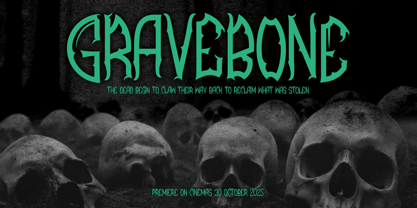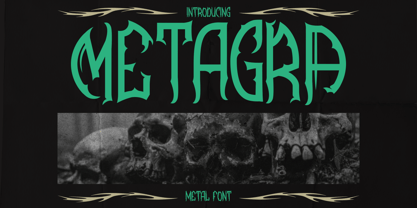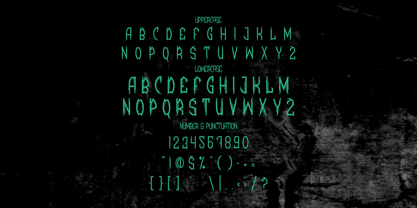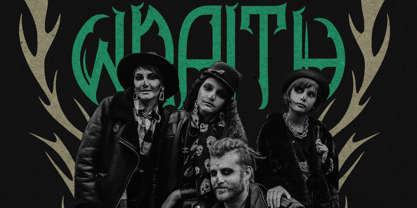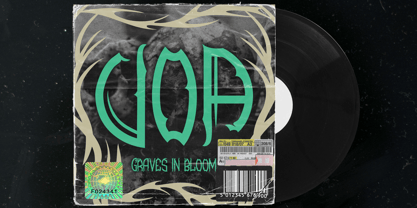
Metagra
von Shanaf
Die Schriftfamilie Metagra wurde von Yesie Erma Yunita entworfen und von Shanaf veröffentlicht. Metagra enthält 1 Stile. Mehr über diese Familie
Metagra Metal Font brings a striking metal aesthetic shaped with tall, narrow forms and pointed detailing. Its letters feature sharp inner cuts, extended spines, and claw-like terminals that create an intense silhouette. The structure is slim but sturdy, offering strong contrast and a dramatic vertical presence. Each character carries a hand-crafted metal vibe with slight irregularities that add grit without harming clarity. This combination makes the font feel raw, rebellious, and energetic while still clean enough for polished design work. Metagra Metal Font captures the essence of heavy music culture with its extreme strokes, spiked contours, and expressive gothic influence. This font fits perfectly into rock branding, blackmetal artwork, band logos, poster titles, film headlines, and dark-themed merchandise. Designers can use it for album covers, magazine layouts, stickers, apparel prints, or packaging that demands a dominant metal attitude. Its tall proportions ensure strong readability in large sizes, while the sharp stylistic flares create instant identity for any project. The font elevates spooky events, Halloween themes, underground promotions, or bold business branding that seeks a fierce visual character. Metagra Metal Font gives creators a powerful tool to build striking visuals with a distinct heavy-metal edge.
Designer: Yesie Erma Yunita
Foundry: Shanaf